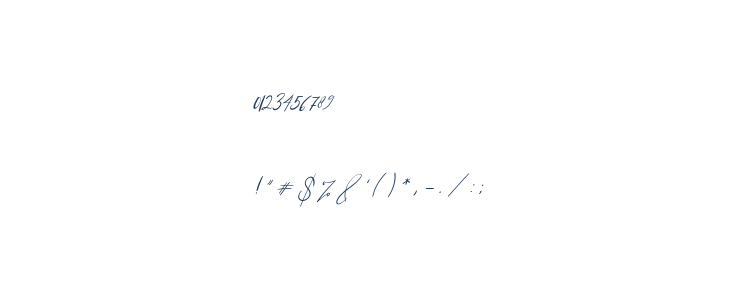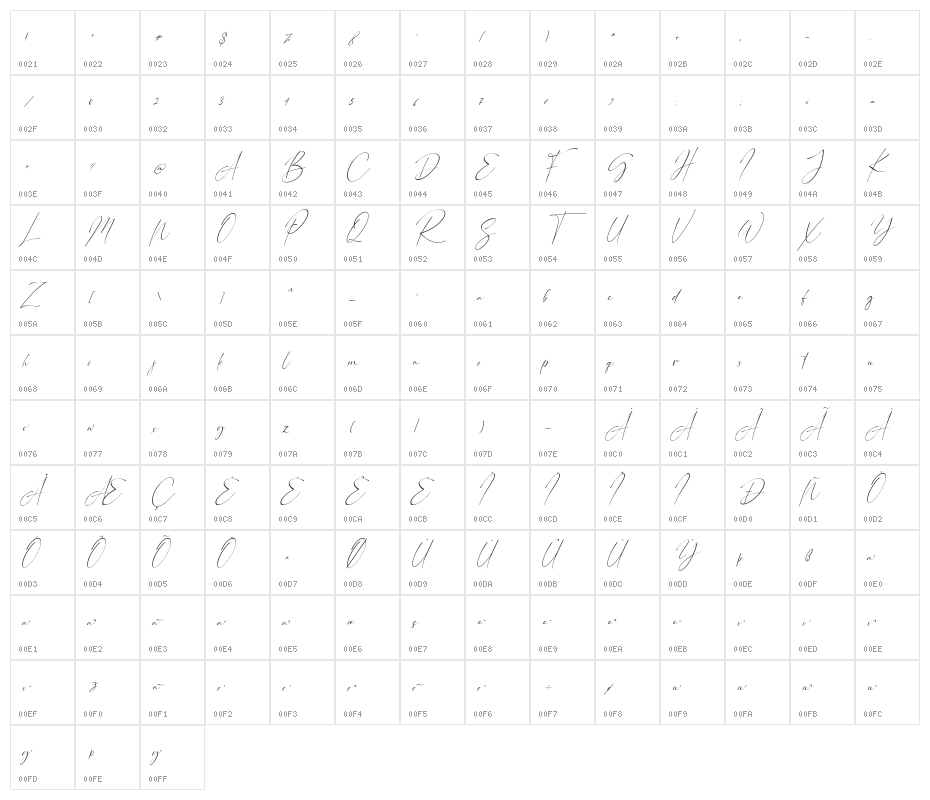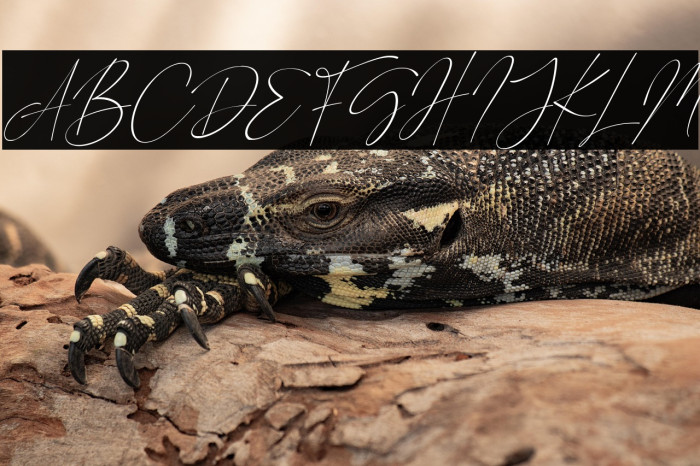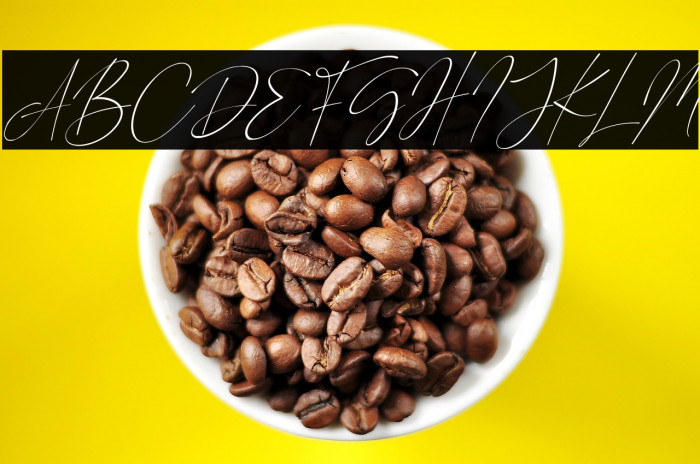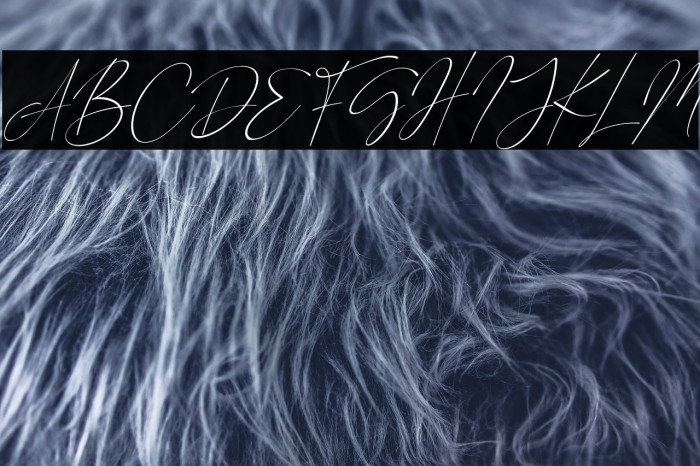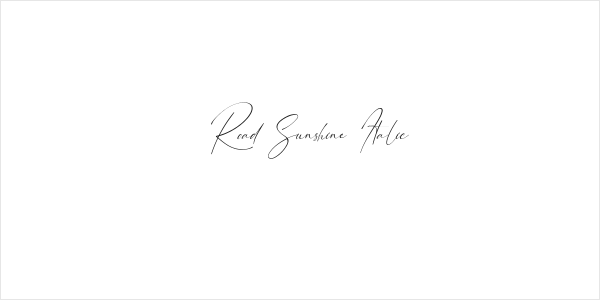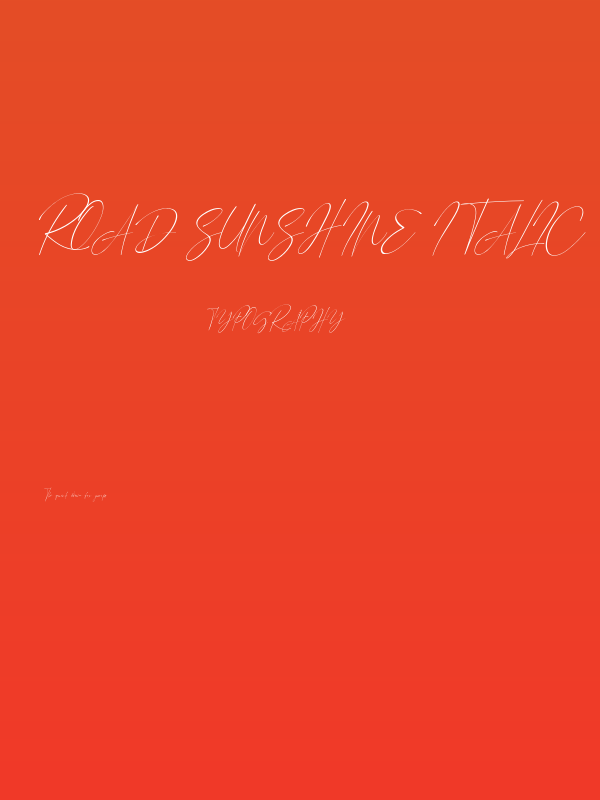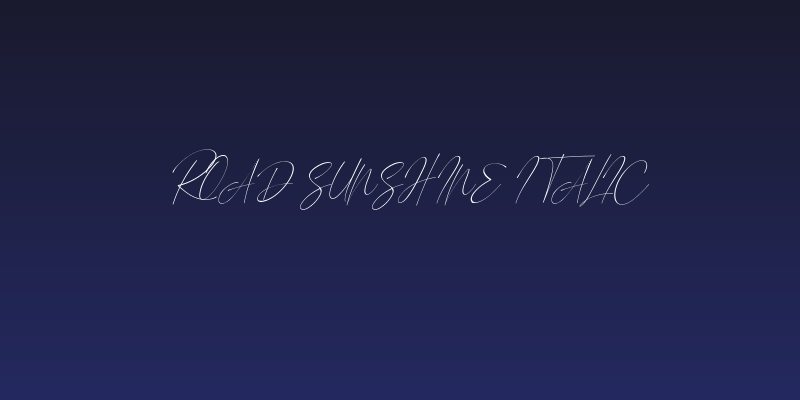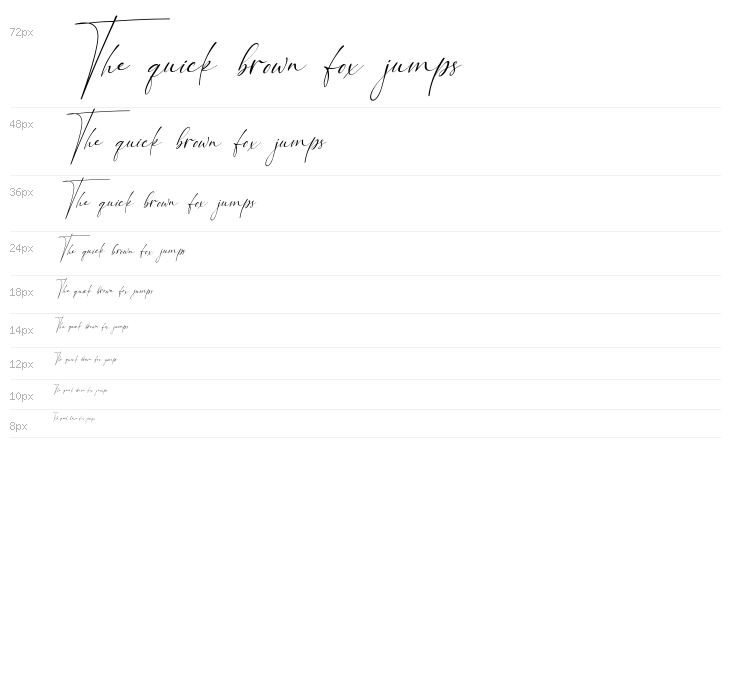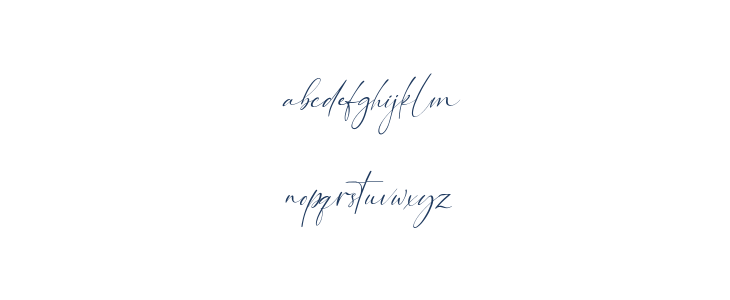
Road Sunshine Italic Font
Road Sunshine Italic Description
This font exudes elegance and fluidity, characterized by its cursive, handwritten style. The letters are connected in a flowing manner, with a consistent slant that adds a sense of movement and grace. The strokes are thin and delicate, giving it a light and airy feel. The uppercase letters are tall and slender, while the lowercase letters maintain a consistent height, enhancing readability. The numbers and special characters are designed to match the overall aesthetic, ensuring a cohesive look across all text elements. This font is perfect for projects that require a personal touch or a sophisticated appearance.